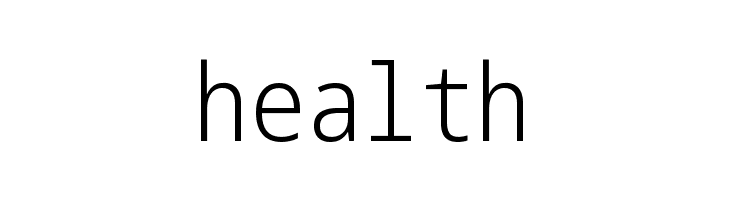
A clean, minimalistic font with light weight and excellent readability.
A modern, extra condensed sans-serif font with a light weight and clean design.
A modern, semi-condensed Thai font with a light weight and clean design.
A semi-condensed serif font with a semi-bold weight, offering elegance and readability.
A clean, monospaced, and condensed sans-serif font with a light weight.
A medium-weight serif font with semi-condensed width and medium contrast.
A semi-condensed, medium-weight serif font with an elegant italic style.
A classic serif typeface with semi-condensed proportions and a light weight, offering elegance and readability.
A modern, extra-condensed sans-serif font with a light weight and clean design.
Elegant serif font with italic style and medium weight.